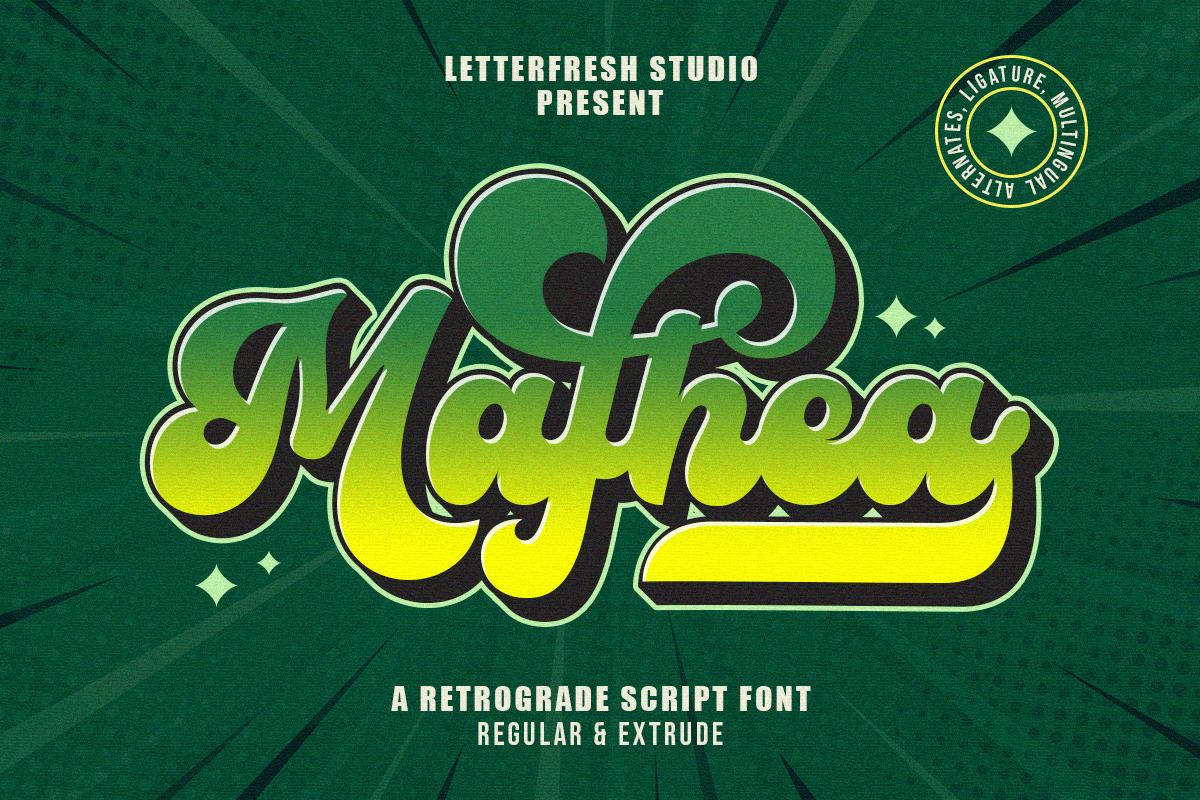
Mafhea - Vintage Retro Font Free Download
Mafhea - Vintage Retro Font Free Download is a stylish and nostalgic typeface inspired by the bold and dynamic designs of the mid-20th century. With its vintage flair and unique character, Mafhea is perfect for branding, retro posters, logos, packaging, and any design project that requires a retro yet modern touch.
The font's strong geometric shapes and playful curves make it stand out while maintaining readability. Mafhea includes uppercase and lowercase letters, punctuation, multilingual support, and works seamlessly across both Mac and Windows systems.